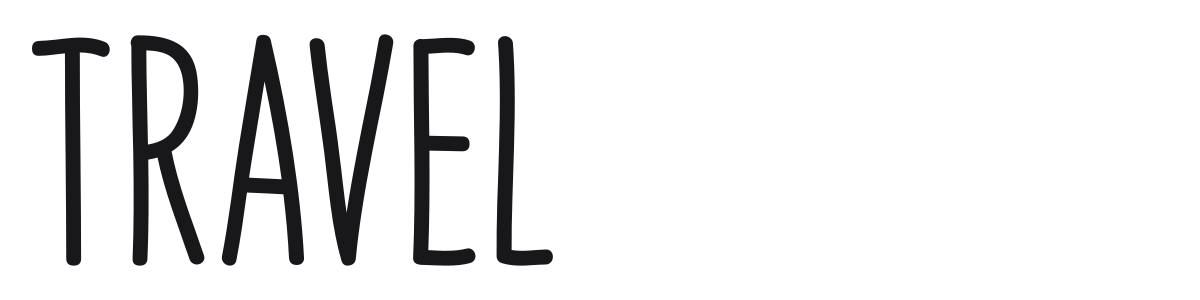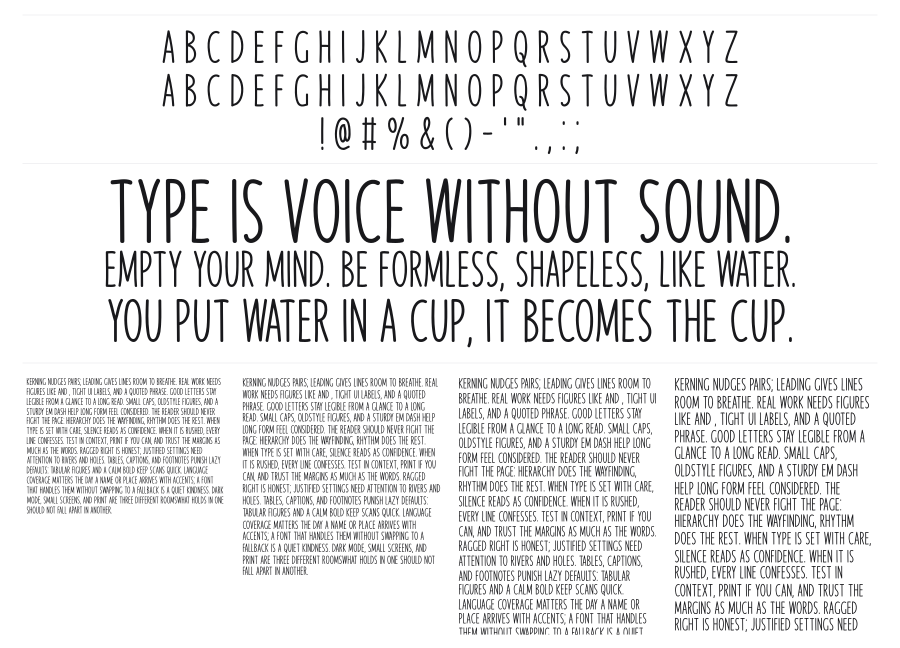
Travel
Travel is a tall, condensed hand-drawn sans with slightly wobbly strokes that give it an easy, informal energy. The irregularity is deliberate and controlled enough to stay legible at headline sizes while keeping things from feeling too polished. It works well for travel brands, editorial headers, and packaging that wants personality without going fully decorative.